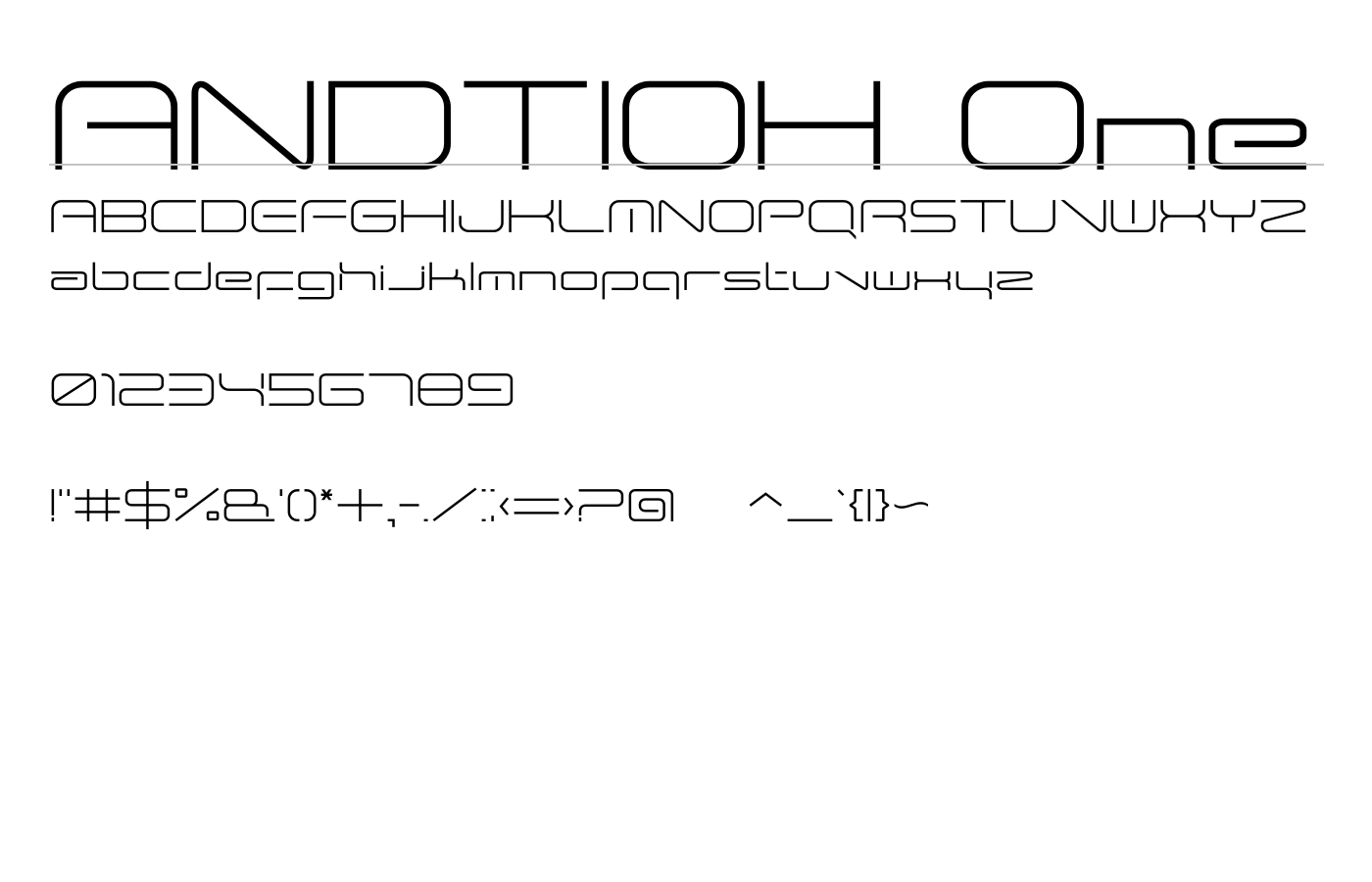
ANDTIOH One is a sleek, modern sans serif font characterized by its thin, geometric strokes and high x-height that give it a clean, futuristic appearance. Its monoline structure with rounded corners and minimalist letterforms make it ideal for tech, digital branding, and contemporary designs where clarity and style are essential. This font works well for headlines, logos, and editorial use where a modern, sophisticated look is desired.
ANDTIOH One Font
About ANDTIOH One Font
| Font family | ANDTIOH One Font |
| Designer | Andrii Shevchyk |